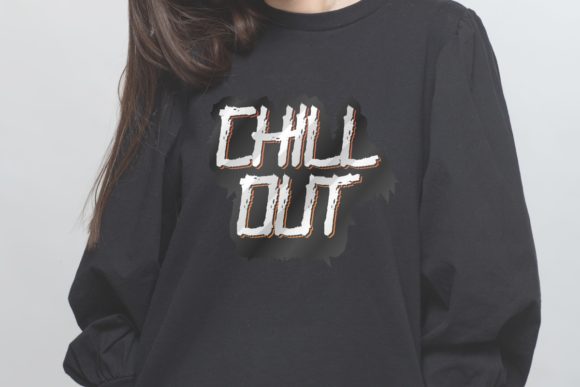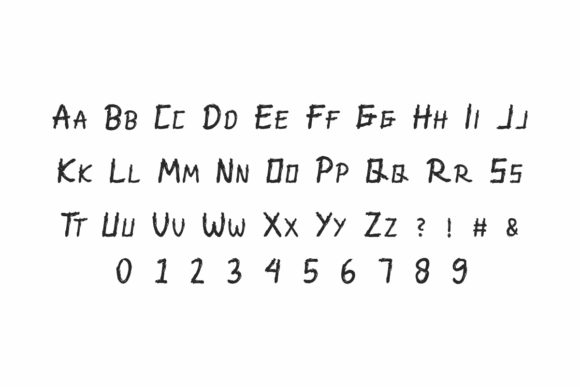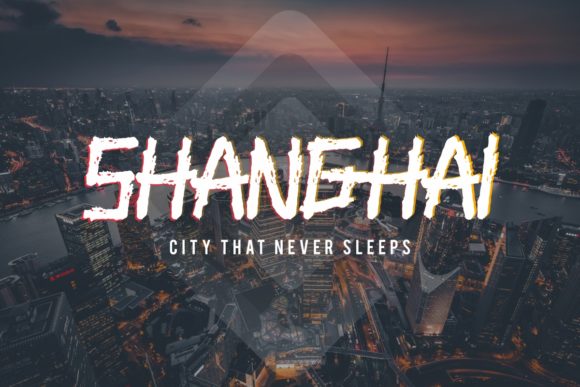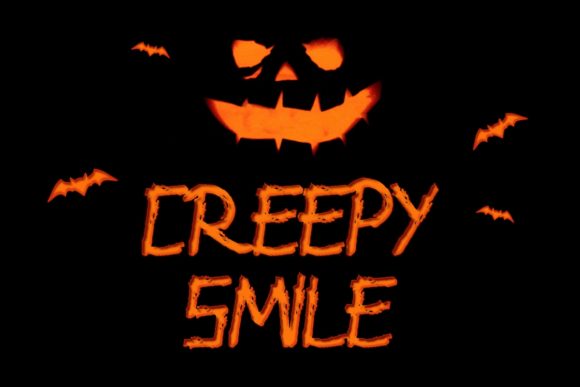
Introduction to Frighter Font
Frighter is a unique and interesting display font.
A little bit spooky, this font looks incredibly adept on a wide variety of Halloween contexts .
Key Features of Frighter Font